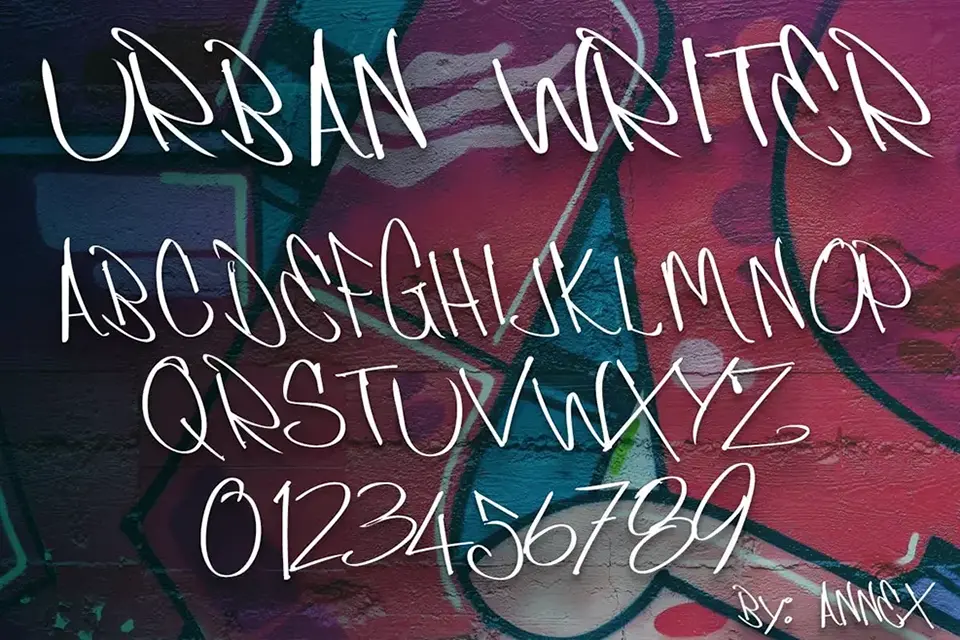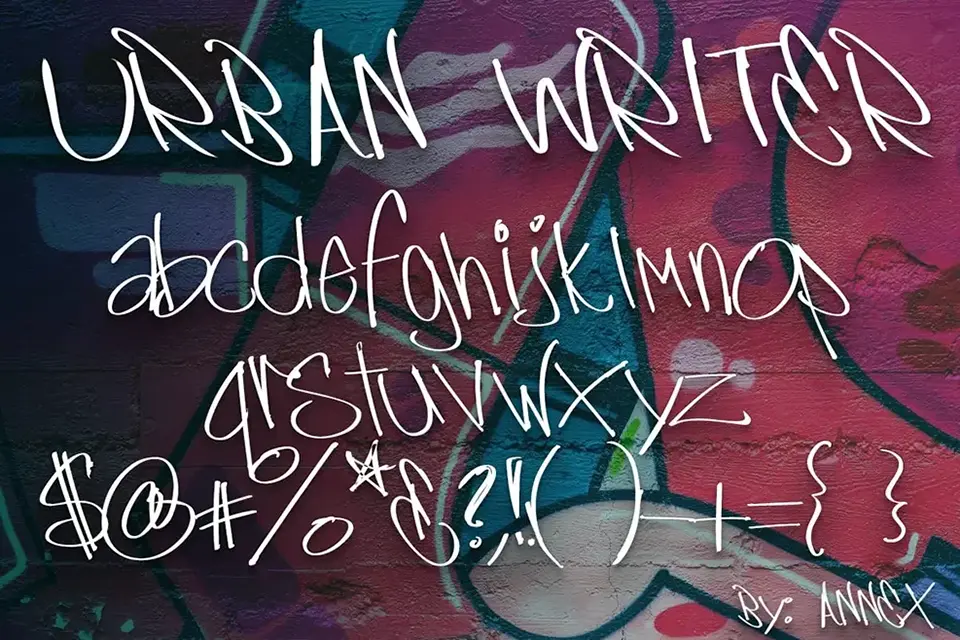
Urban Writer Font
Urban Writer is a charming handwritten script font that captures the authentic essence of urban graffiti style. With its flowing letterforms and contemporary flair, this versatile typeface is ideal for creating eye-catching headlines, logos, branding projects, and creative designs that demand character and personality. Whether you’re designing posters, invitations, or digital content, Urban Writer brings an artistic touch and urban aesthetic to every project, making it perfect for designers seeking a modern yet organic typeface.